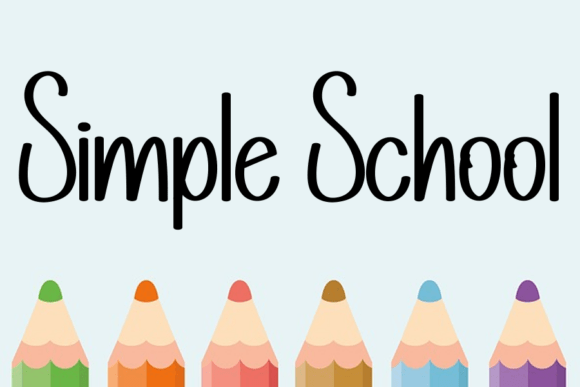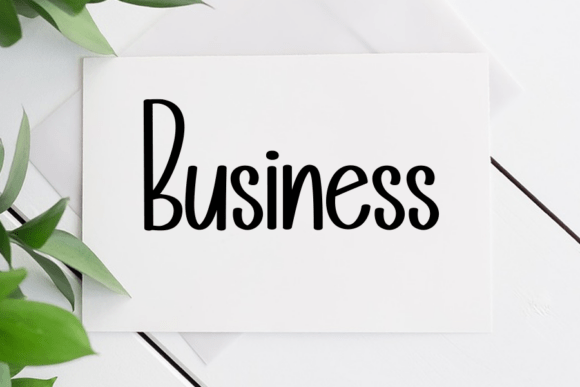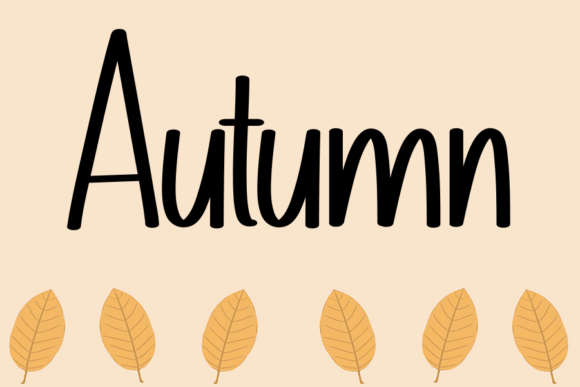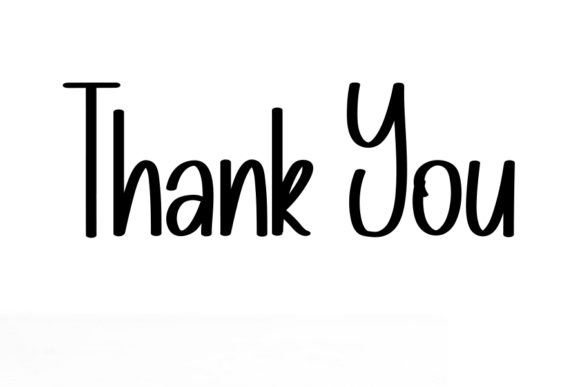
Introducing Budget Font: The Sweet and Cursive Handwritten Font for Your Design Needs
Are you looking for a font that can add a touch of elegance and romance to your designs? Look no further than Budget Font, a sweet and cursive handwritten font that is perfect for a variety of design projects. In this article, we’ll take a closer look at Budget Font and explore its features, benefits, and uses.
What is Budget Font?
Budget Font is a beautiful, handwritten font that is designed to add a touch of joy and romance to your designs. Its gentle and cursive curves make it perfect for creating elegant and sophisticated designs that are sure to impress. Whether you’re working on a branding project, designing a logo, or creating wedding materials, Budget Font is the perfect choice.
Features of Budget Font
So, what makes Budget Font so special? Here are just a few of its key features:
- Sweet and Cursive Design: Budget Font features a beautiful, cursive design that is sure to add a touch of elegance to your designs.
- Handwritten Style: This font is designed to look like it was written by hand, giving it a personal and unique touch.
- Versatile: Budget Font can be used for a wide range of design projects, from branding and logos to wedding materials and greeting cards.
- Elegant and Casual: This font is perfect for designs that need to look elegant and sophisticated, but still casual and approachable.
Benefits of Using Budget Font
So, why should you choose Budget Font for your design projects? Here are just a few of the benefits of using this beautiful font:
- Adds a Touch of Elegance: Budget Font is sure to add a touch of elegance and sophistication to your designs.
- Perfect for Romantic Designs: This font is perfect for designs that require a romantic and whimsical touch, such as wedding materials and greeting cards.
- Increases Readability: The clear and cursive design of Budget Font makes it easy to read, even at small sizes.
- Versatile: This font can be used for a wide range of design projects, making it a great addition to any designer’s toolkit.
Uses of Budget Font
So, what can you use Budget Font for? Here are just a few ideas:
- Branding: Use Budget Font to create elegant and sophisticated branding materials, such as logos and business cards.
- Wedding Materials: This font is perfect for wedding materials, such as invitations, programs, and place cards.
- Greeting Cards: Use Budget Font to create beautiful and elegant greeting cards for special occasions.
- Fashion and Lookbook: This font is perfect for fashion designs, such as lookbooks and marketing materials.
- Marketing Promotion: Use Budget Font to create eye-catching and elegant marketing materials, such as brochures and flyers.
Tips for Using Budget Font
Here are a few tips for using Budget Font in your designs:
- Use it with Other Fonts: Budget Font pairs well with other fonts, so don’t be afraid to experiment with different combinations.
- Adjust the Size and Color: Experiment with different sizes and colors to find the perfect look for your design.
- Use it for Headings and Titles: Budget Font is perfect for headings and titles, where its elegant and cursive design can really shine.
In conclusion, Budget Font is a beautiful and versatile font that is perfect for a wide range of design projects. Its sweet and cursive design makes it perfect for adding a touch of elegance and romance to your designs. Whether you’re working on a branding project, designing a logo, or creating wedding materials, Budget Font is the perfect choice. So why not give it a try and see the difference it can make in your designs?